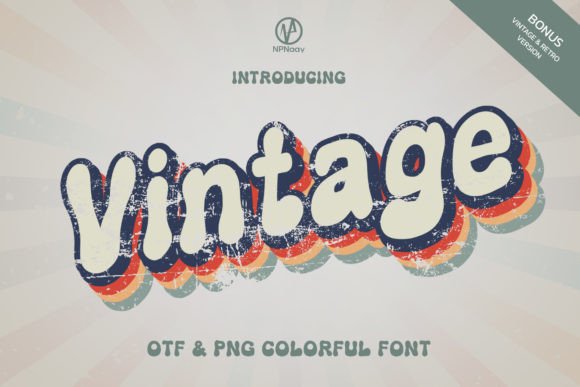
Introducing Vintage Font, the stunning and bold color font that will bring a touch of vintage charm to your projects. Created by the talented designer NPNaay, this font family boasts a dazzling array of colors that will leave a lasting impression on anyone who sees it.
Vintage Font is the perfect choice for those seeking a font that is both eye-catching and versatile. It's ideal for use in logos, branding, invitations, social media posts, and much more. Whether you're looking to create a bold and daring design or a more subtle and understated look, Vintage Font has got you covered.
This font family is more than just a pretty face, though. It's also incredibly easy to use, with each letter and character perfectly crafted to ensure maximum legibility and readability. And with a wide range of weights and styles to choose from, you'll have everything you need to create truly stunning designs.